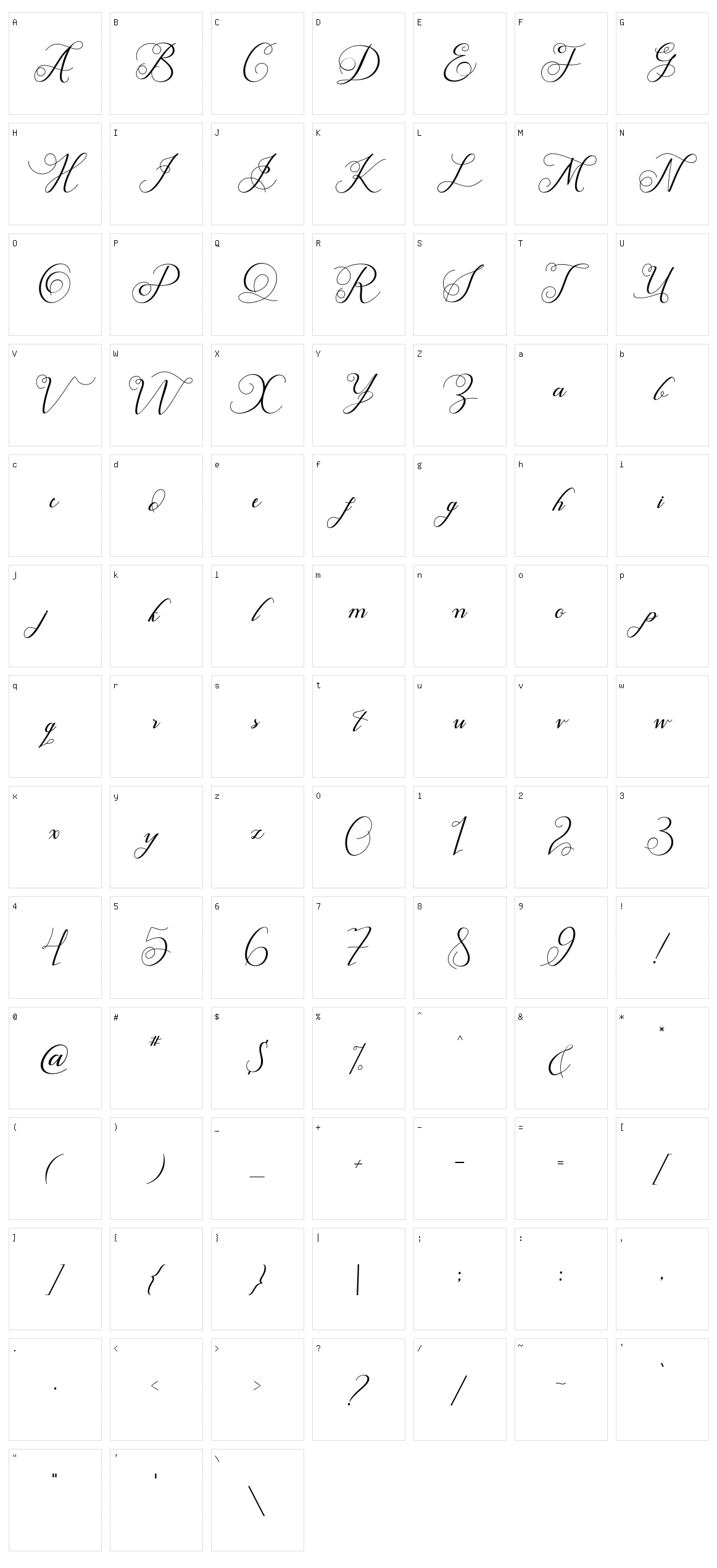
The free font Satarina is carefully designed by belovestudio, showcasing a thoughtful balance of creativity and usability and falls under the Script font style. When you download the ZIP file, it contains only 78.55 KB of font files, making it lightweight and quick to download. Please review the license details below to understand permitted usage and distribution rights. If license information is not available, we recommend using this font for personal projects only or contacting the author directly for commercial usage permissions.